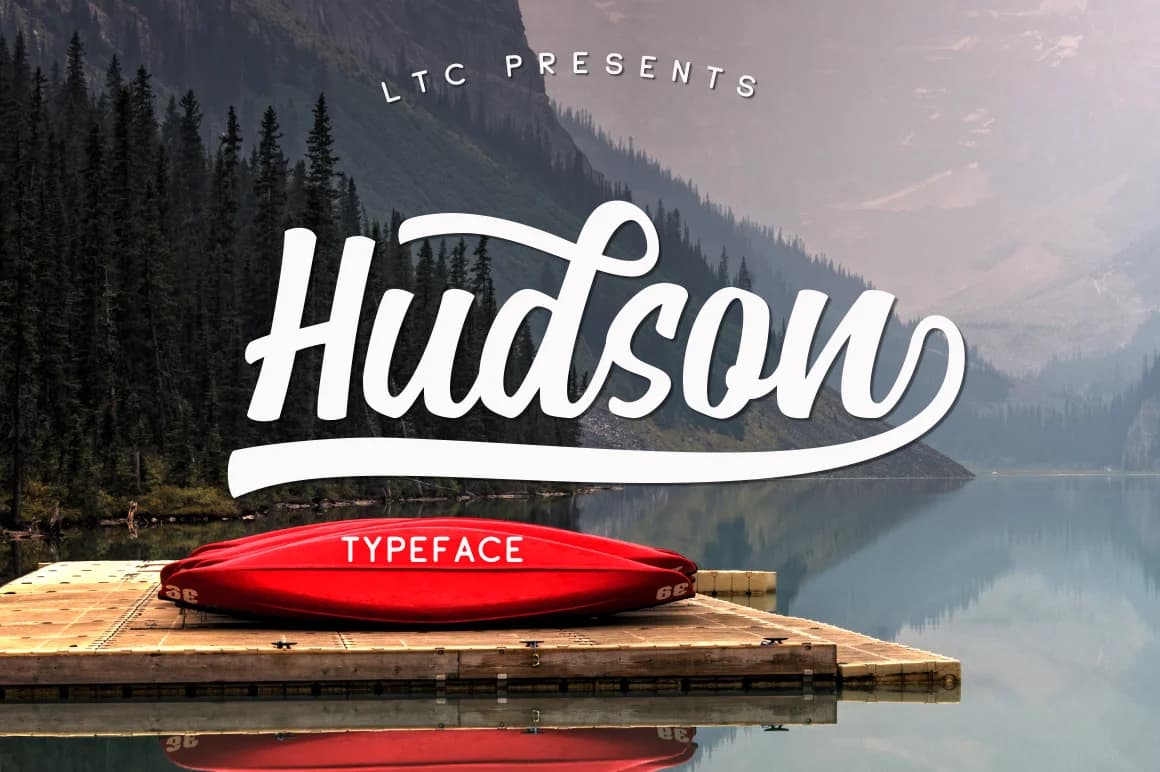
Hudson by Pasha Larin is a hand-drawn script with an organic, nature-inspired character that brings warmth and personality to contemporary designs. The font balances playful, flowing letterforms with modern sensibility, making it equally at home in minimalist compositions or more elaborate creative projects.
This versatile typeface excels in branding applications for lifestyle and wellness companies seeking an approachable yet sophisticated voice. It's particularly effective for luxury product packaging, from artisanal coffee labels to natural skincare boxes, where its organic feel strengthens brand authenticity. Wedding and event designers will find Hudson ideal for invitation suites and save-the-date cards, while crafters can leverage its natural aesthetic for DIY signage and Etsy shop branding. The script also translates beautifully to apparel design, offering textile-ready character rendering that maintains legibility across embroidery, screen printing, and direct-to-garment applications.
Hudson Font is a script font that shines as a display or heading face. Pair it with a clean sans-serif or serif font for body text β the contrast creates a clear hierarchy while the two styles stay balanced and easy to read.
Hudson Font
by Pasha Larin